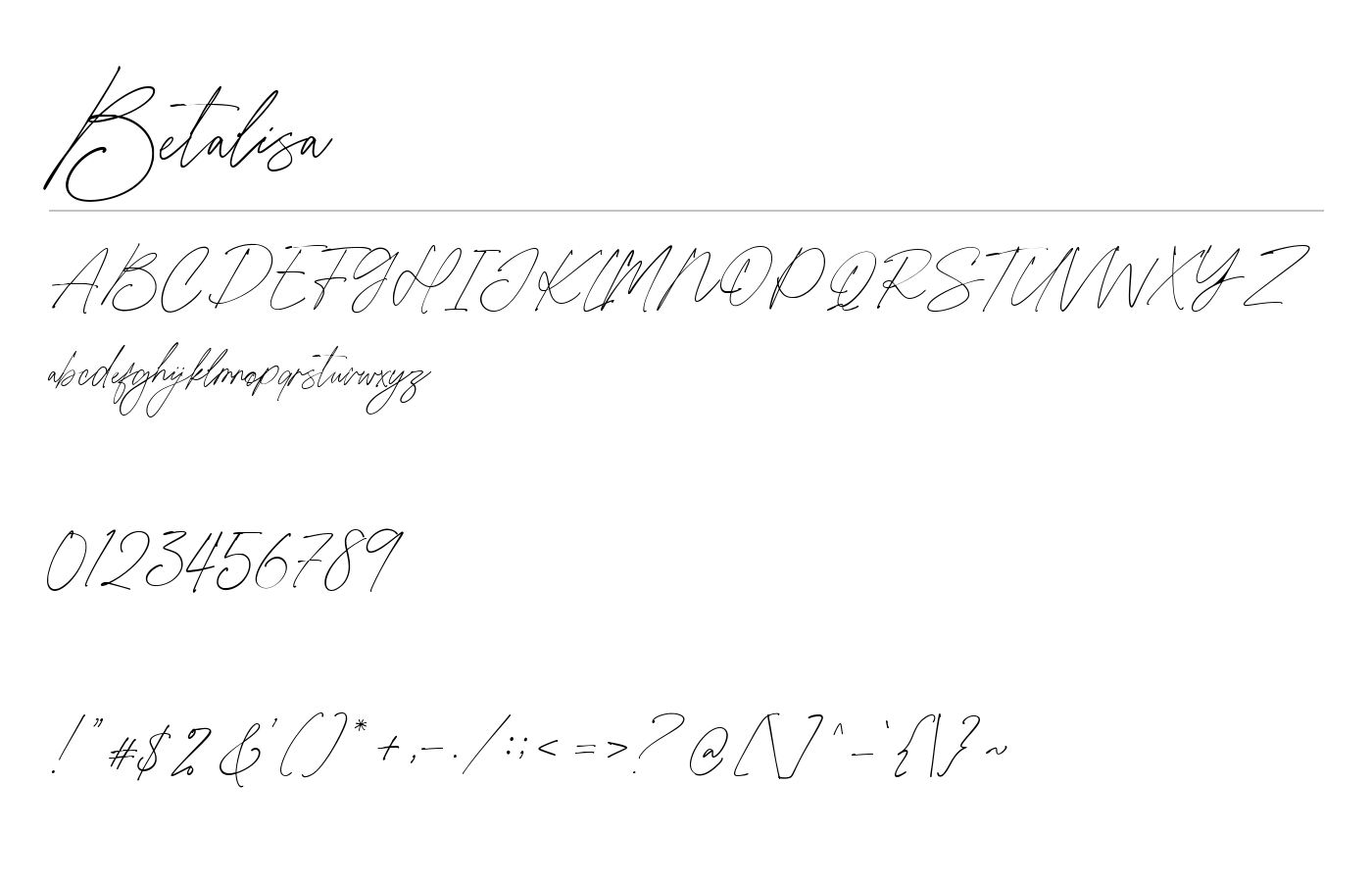
Betalisa is a delicate script font with a light, elegant flow that mimics graceful handwriting. Its slender strokes and high contrast create a refined, airy feel, perfect for adding a touch of sophistication to invitations, logos, and branding with a personal, stylish flair. This font works beautifully in designs that seek to convey elegance and modern charm with a handwritten touch.
Betalisa Font
About Betalisa Font